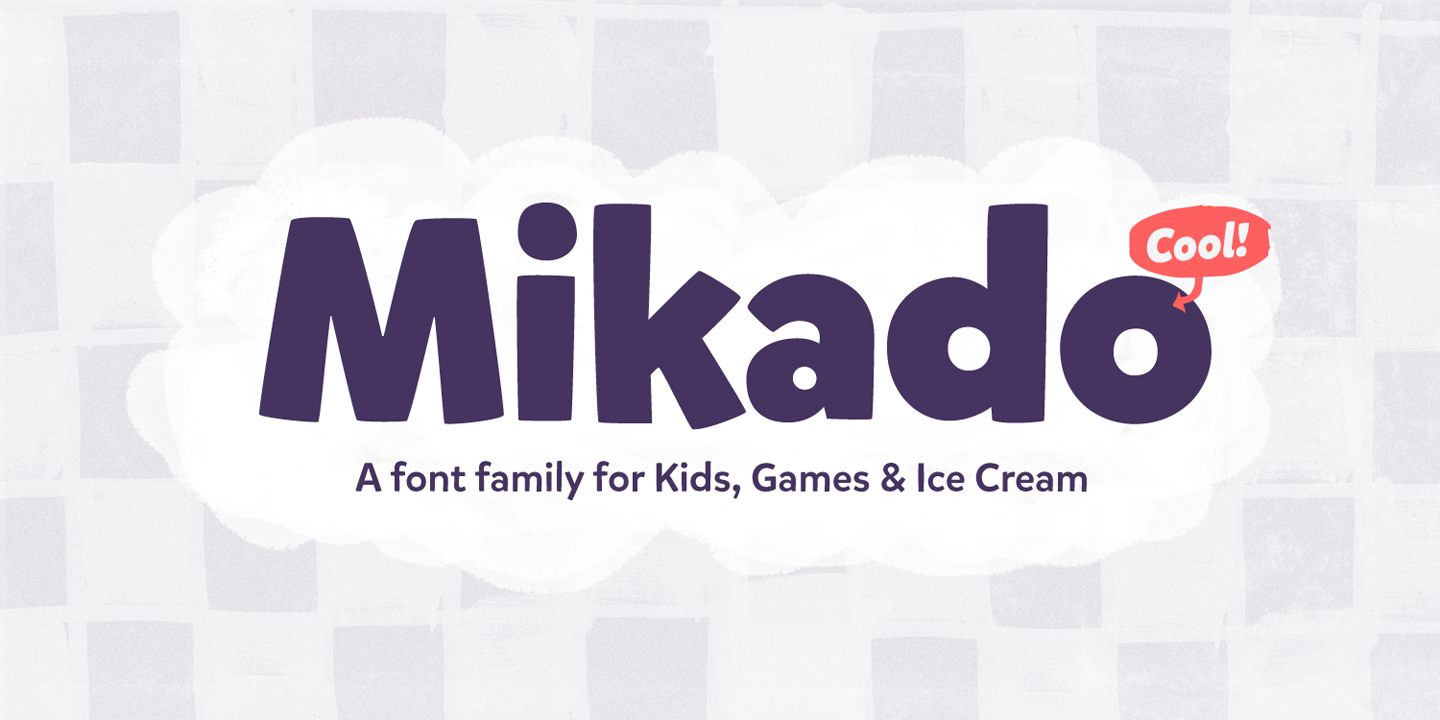
Mikado Font is perfect for Japanese-inspired branding, zen meditation centers, minimalist design projects, martial arts promotions, tea ceremony materials, traditional calligraphy applications, cultural exhibitions, and authentic Asian restaurant communications.
This elegant sans-serif typeface is exciting because it captures the serene balance and disciplined precision of Japanese aesthetics through clean letterforms that evoke the philosophical depth and artistic refinement of traditional Japanese culture.
The Mikado Font family includes light, regular, medium, and bold weights with zen-inspired alternates, minimalist decorative elements, and Japanese-influenced character variations that enhance the authentic cultural atmosphere of any Eastern-themed design project.
Serene and disciplined, Mikado Font Free Download brings the timeless wisdom of Japanese design philosophy to contemporary typography through masterful simplicity and balance. This exceptional font embodies the principle that true elegance lies in restraint and the careful consideration of every element, making it invaluable for brands seeking authentic cultural connection. Its clean geometry reflects the meditative precision and spiritual depth that defines Japanese aesthetics, resonating with audiences who appreciate mindful design and cultural authenticity. Perfect for wellness centers and cultural institutions, this font ensures your message carries the respectful dignity and philosophical depth that Eastern traditions deserve. Whether used for meditation apps or cultural festival promotions, Mikado Font Free Download delivers the zen authenticity and serene presence that connects with people seeking balance and mindful living.